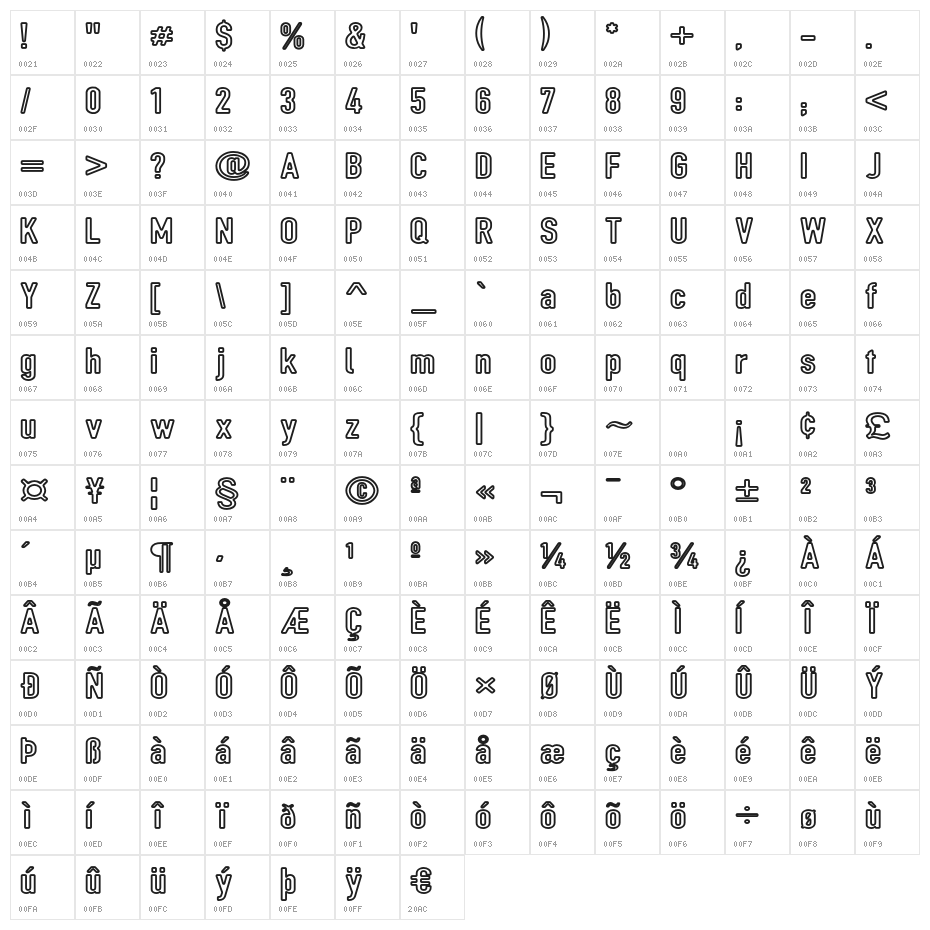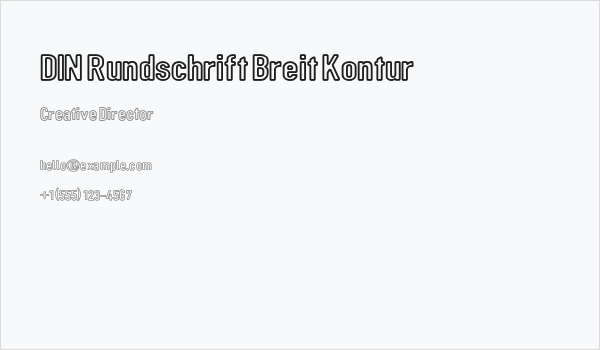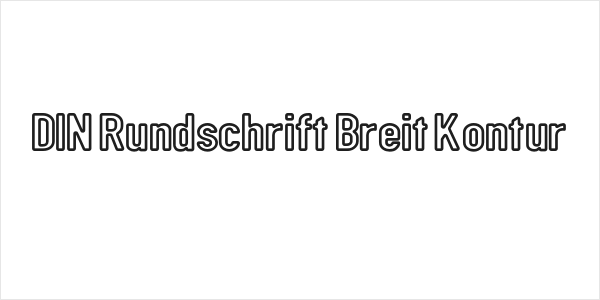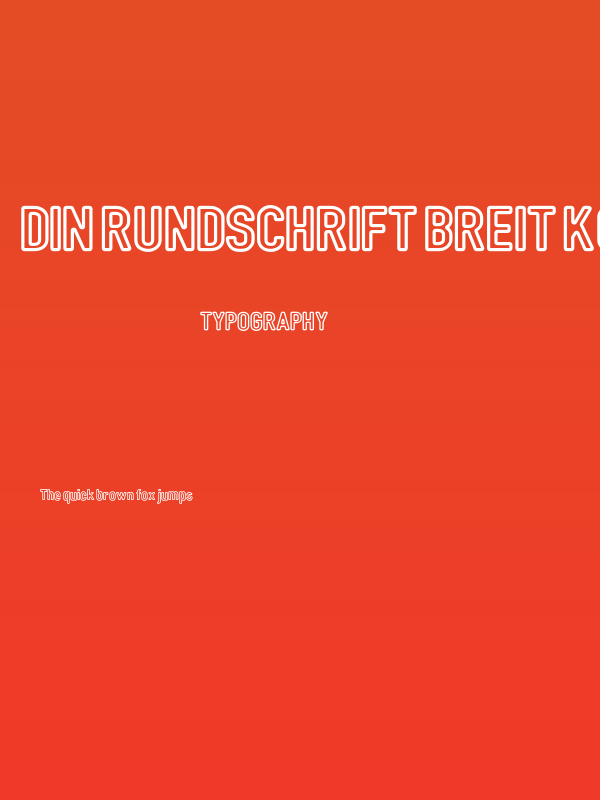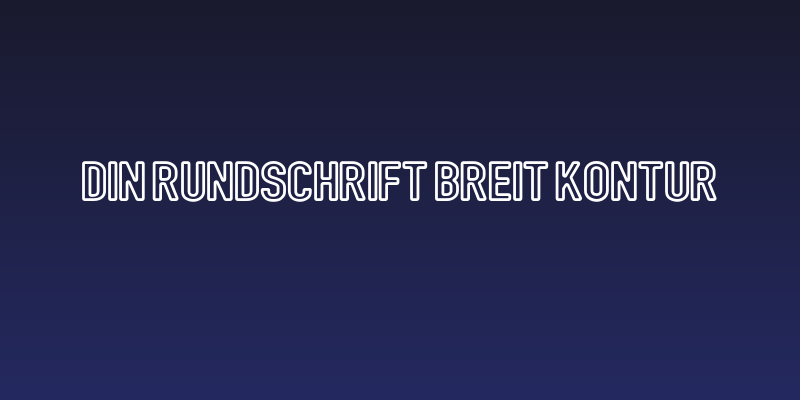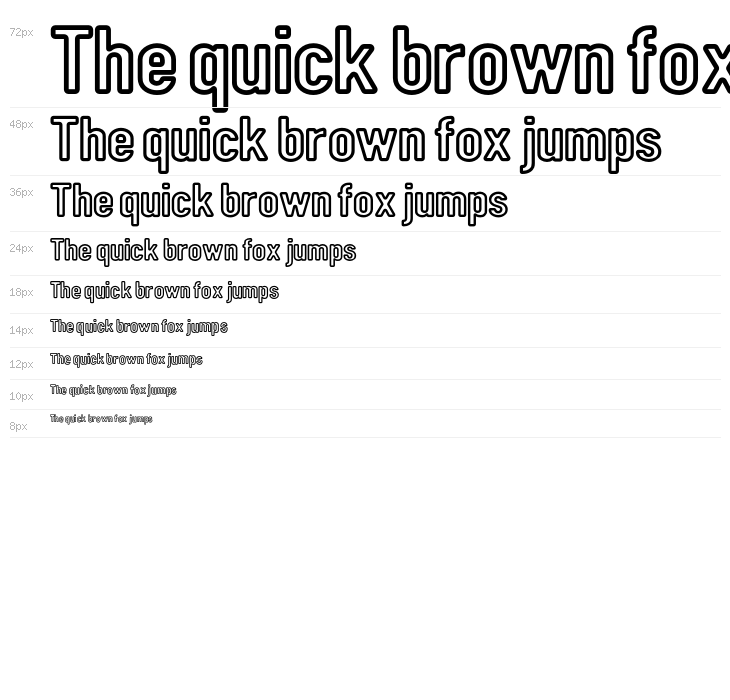
DIN Rundschrift Breit Kontur Font
DIN Rundschrift Breit Kontur Description
This font features a bold, outlined style with a geometric and modern appearance. The characters are uppercase and lowercase letters, numerals, and a variety of special symbols. The design is clean and structured, with uniform stroke widths that create a strong visual impact. The font's outline gives it a distinctive look, making it suitable for attention-grabbing designs. The spacing between characters is balanced, ensuring readability while maintaining its unique aesthetic. This font is ideal for projects that require a contemporary and bold statement.
| Proposed Projects | Ideal for headlines, posters, logos, and branding materials that require a strong visual impact. |